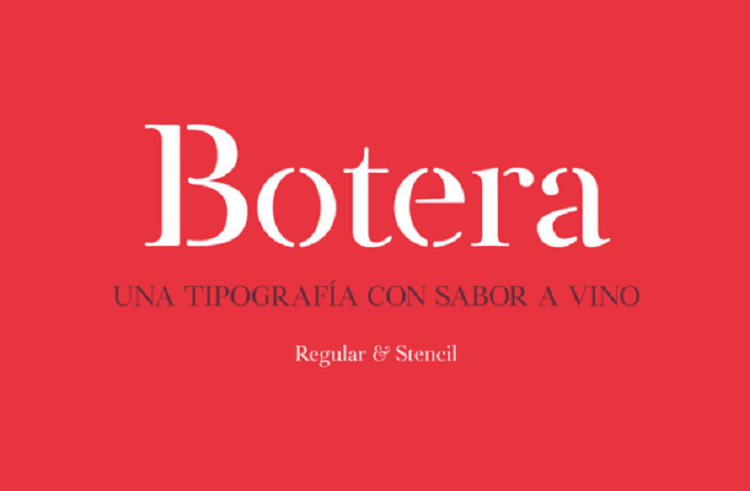
Botera Serif Typeface Free
Botera Serif Typeface is a Typographic Project based in the environment of Valdepeñas (Ciudad Real, Spain) and its wine heritage. Enology and typography speak the language of finesse. Both of them understand time in the same way: the owner of qualities related with knowledge of tradition and new influences.
Bringing together the heritage and the flavors, aromas, contrast and power that make so recognizable the wines of this area. Reading texts in Botera type, we do not only use a font, but we give to the user an original heritage of a region consistent with its roots. We think Botera is a typographical project that is born in this particular place, Valdepeñas and according to its wine heritage.